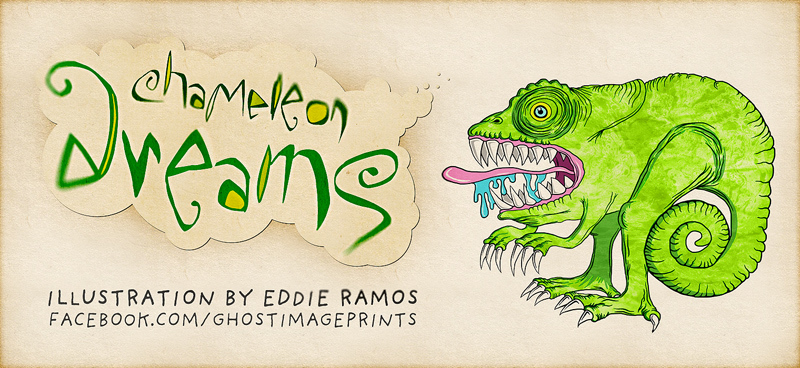
ChaMeLEon DrEamS is a free curly display font with wiry strokes, sudden thick wedges, sharply stretched peaks, and erratic changes in height. Tight loops and long pointed forms keep the silhouette restless.
On music graphics and event posters, the lettering supplies a raw theatrical edge that also suits alternative fashion packaging and club merchandise. Its exaggerated curls and spear-like strokes can become part of an illustrated emblem or stage graphic instead of serving as neutral text.
ChaMeLEon DrEamS